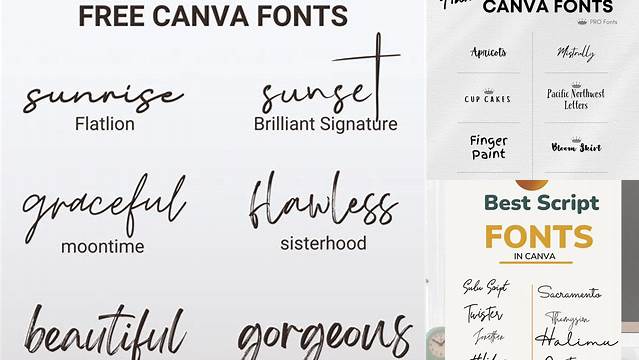
Cool Canva Handwriting Fonts To Try Now!
Hey guys! Looking to spice up your Canva designs with some awesome handwriting fonts? You've come to the right place! We're diving deep into the world of Canva fonts, focusing on those cool, quirky, and elegant handwriting styles that can add a personal touch to your projects. Whether you're creating social media graphics, invitations, or branding materials, the right font can make all the difference. So, let's explore some amazing options and get those creative juices flowing!
Handwritten Fonts in Canva: An Overview
When we talk about handwritten fonts, we're referring to typefaces that mimic the look of actual handwriting. These fonts can range from neat and legible to messy and whimsical, offering a wide variety of styles to suit different design needs. Handwritten fonts can bring a sense of authenticity and warmth to your designs, making them feel more personal and approachable. Canva has a huge library of fonts, and finding the perfect handwritten one can be a game-changer for your projects. From elegant scripts to playful doodles, the options are endless, so let's explore some great choices available within Canva.
Best Script Fonts on Canva
Script fonts are a subset of handwriting fonts that emulate cursive writing. They're often elegant and flowing, making them perfect for invitations, logos, and anything that needs a touch of sophistication. The best script fonts on Canva include options like "Great Vibes," known for its classic and refined appearance, and "Pacifico," a casual yet stylish choice. Using these fonts can instantly elevate your designs, adding a touch of class and personality. When choosing a script font, consider the overall tone and style of your project to ensure it complements your message effectively. Experiment with different sizes and weights to find the perfect balance and make your text stand out.
Free Handwriting Fonts for Canva
One of the best things about Canva is the availability of many free handwriting fonts. These fonts allow you to create stunning designs without breaking the bank. Some popular free options include "Permanent Marker," which gives a bold, handwritten feel, and "Amatic SC," a simple and condensed font perfect for headlines. These free fonts are great for various projects, from social media posts to presentations. Don't underestimate the power of free resources; Canva's selection ensures you have plenty of high-quality options to choose from. Make sure to regularly check Canva's font library, as they often update their offerings with new and exciting free fonts.
Premium Handwriting Fonts in Canva
For those willing to invest a bit, Canva also offers premium handwriting fonts. These fonts often come with more intricate designs and unique features. While they require a Canva Pro subscription or a one-time purchase, the added quality and distinctiveness can be worth it. Premium options often provide greater versatility and can set your designs apart from the crowd. Consider premium fonts if you're looking for a specific style or need a font that truly captures your brand's identity. Remember to preview the font in different contexts to ensure it aligns with your project's aesthetic before committing to the purchase.
Cursive Fonts for Canva: A Detailed Look
Cursive fonts are designed to mimic the flowing strokes of cursive writing. They add a touch of elegance and sophistication to any design. Within Canva, you'll find many cursive fonts that can enhance your projects. Fonts like "Alex Brush" and "Dancing Script" are popular choices for invitations, greeting cards, and branding materials. When using cursive fonts, ensure that the text remains legible and easy to read. Consider the spacing and size of the font to achieve the desired effect. These fonts are perfect for adding a personal and stylish touch to your creative endeavors.
Font Pairing with Canva Handwriting Fonts
Choosing the right font pairing is crucial when using Canva handwriting fonts. Pairing a handwriting font with a simpler, more legible font can create a balanced and visually appealing design. For example, pairing a script font with a sans-serif font like Arial or Helvetica can provide contrast and improve readability. Experiment with different combinations to find what works best for your project. Tools like Canva's font pairing suggestions can be helpful in discovering harmonious combinations. Remember, the goal is to create a design that is both visually appealing and easy to read.
Using Handwritten Fonts for Logos
Handwritten fonts can add a personal and unique touch to logos. When using handwritten fonts for logos, it's important to choose a font that reflects your brand's personality and values. A playful, casual font might be suitable for a children's brand, while an elegant script font could work well for a luxury brand. Ensure that the font is legible and scalable, as logos need to look good in various sizes. Test the logo on different backgrounds and in different formats to ensure it maintains its clarity and impact. A well-chosen handwritten font can make your logo memorable and distinctive.
Handwritten Fonts for Invitations
For invitations, handwritten fonts can add a personal and intimate touch. Whether you're designing wedding invitations, birthday party invites, or event announcements, the right handwritten font can set the tone and create anticipation. Opt for elegant script fonts for formal events and more casual, playful fonts for informal gatherings. Consider the readability of the font, especially for important details like dates and times. Experiment with different layouts and embellishments to create a unique and eye-catching invitation. Using a handwritten font can make your invitations feel more special and personalized.
Social Media Graphics with Canva Fonts
Handwritten fonts can make your social media graphics stand out. With the constant stream of content on social media, it's important to grab attention with visually appealing designs. Using handwritten fonts can add a unique and personal touch to your posts. Combine them with eye-catching images and vibrant colors to create engaging content. Use handwritten fonts for quotes, announcements, and calls to action. Ensure that the font is legible on different devices and screen sizes. By incorporating handwritten fonts into your social media graphics, you can create a cohesive and memorable brand presence.
Final Thoughts on Using Canva Handwriting Fonts
So there you have it, folks! Canva handwriting fonts are a fantastic way to add a personal and creative touch to your designs. From elegant scripts to playful doodles, the options are endless. Remember to consider legibility, pairing, and the overall tone of your project when choosing a handwriting font. Experiment with different styles and combinations to find what works best for you. And don't forget to have fun and let your creativity shine! With the right Canva handwriting font, you can create designs that are both visually appealing and uniquely your own.